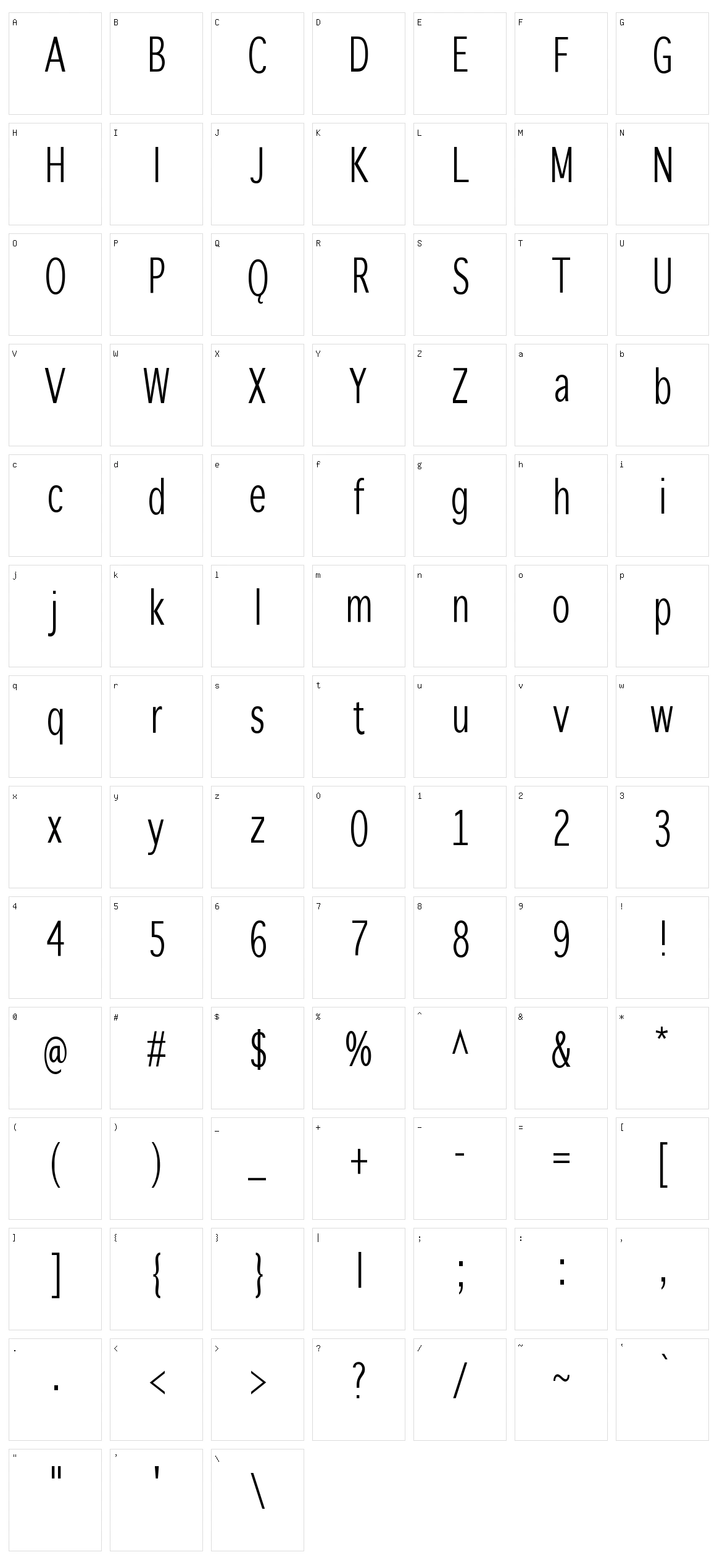
The free font Winterthur Condensed is carefully designed by Manfred Klein, showcasing a thoughtful balance of creativity and usability and falls under the Sans serif font style. When you download the ZIP file, it contains only 73.64 KB of font files, making it lightweight and quick to download. Please review the license details below to understand permitted usage and distribution rights. If license information is not available, we recommend using this font for personal projects only or contacting the author directly for commercial usage permissions.